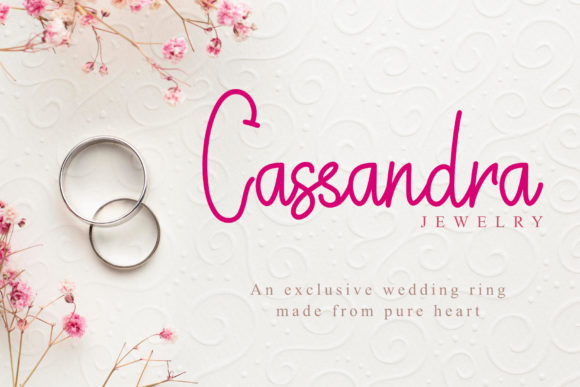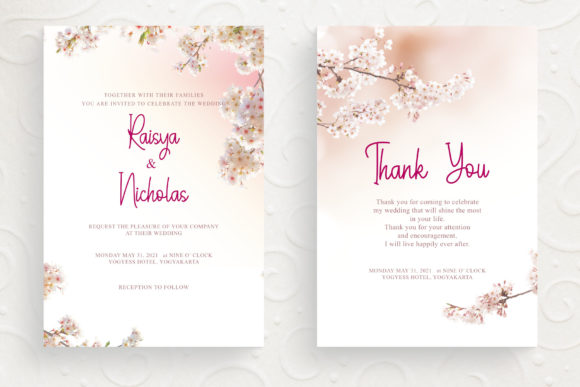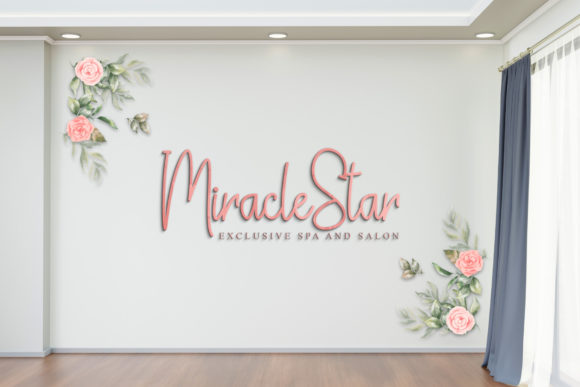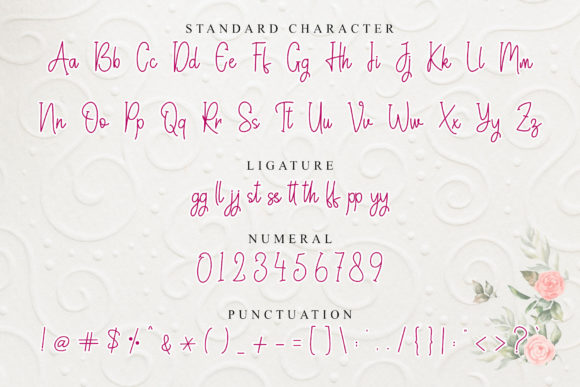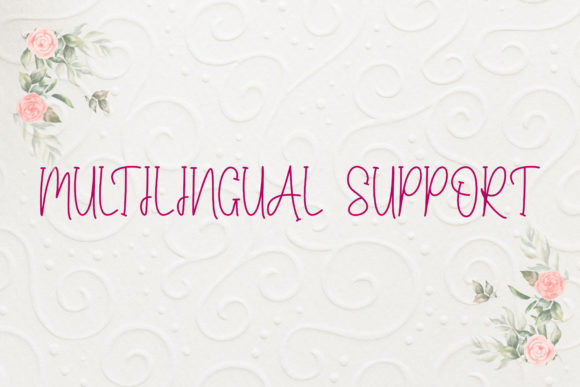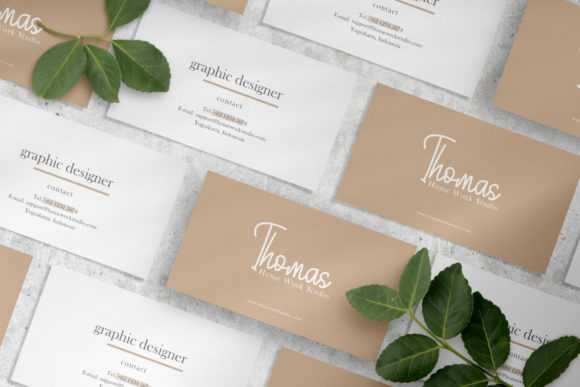
Introducing Gilliana Diary Font: The Perfect Blend of Quirkiness and Elegance
Are you a designer or crafter looking for a unique and versatile font to elevate your creative projects? Look no further than Gilliana Diary Font! This charming handwritten font is perfect for adding a touch of personality to your designs, making it ideal for a wide range of applications, from invitations and wedding invitations to greeting cards, business cards, and more.
What Makes Gilliana Diary Font So Special?
Gilliana Diary Font is a quirky yet elegant handwritten font that boasts a distinctive charm. Its unique blend of playfulness and sophistication makes it perfect for designers and crafters who want to add a personal touch to their work. With Gilliana Diary Font, you can create stunning designs that are sure to capture the attention of your audience.
Perfect for a Variety of Creative Projects
Gilliana Diary Font is incredibly versatile, making it suitable for a wide range of creative projects. Here are just a few ideas to get you started:
- Invitations: Create beautiful and unique invitations for parties, events, and gatherings that will set the tone for a memorable occasion.
- Wedding Invitations: Make your wedding invitations truly special with Gilliana Diary Font, adding a touch of romance and whimsy to your big day.
- Greeting Cards: Design stunning greeting cards for birthdays, holidays, and other special occasions that will be cherished by your loved ones.
- Business Cards: Elevate your business cards with a professional yet personal touch, making a lasting impression on potential clients and customers.
Key Features of Gilliana Diary Font
So, what makes Gilliana Diary Font so special? Here are some of its key features:
- Handwritten Style: Gilliana Diary Font boasts a beautiful, handwritten style that adds a personal touch to your designs.
- Quirky yet Elegant: This font perfectly balances quirkiness and elegance, making it suitable for a wide range of creative projects.
- Unique Character: Gilliana Diary Font has a distinctive character that sets it apart from other fonts, ensuring your designs stand out from the crowd.
- Easy to Read: Despite its unique style, Gilliana Diary Font is easy to read, making it perfect for body text and headings.
Tips for Using Gilliana Diary Font
To get the most out of Gilliana Diary Font, here are some tips to keep in mind:
- Pair with Other Fonts: Experiment with pairing Gilliana Diary Font with other fonts to create stunning contrast and visual interest.
- Use for Headings and Titles: Use Gilliana Diary Font for headings and titles to add a touch of personality to your designs.
- Experiment with Colors: Try out different colors and textures to add depth and visual interest to your designs.
In conclusion, Gilliana Diary Font is a versatile and charming handwritten font that’s perfect for designers and crafters looking to add a touch of personality to their creative projects. With its quirky yet elegant style, unique character, and ease of use, Gilliana Diary Font is sure to become a favorite in your font collection. So why wait? Download Gilliana Diary Font today and start creating stunning designs that will capture the attention of your audience!